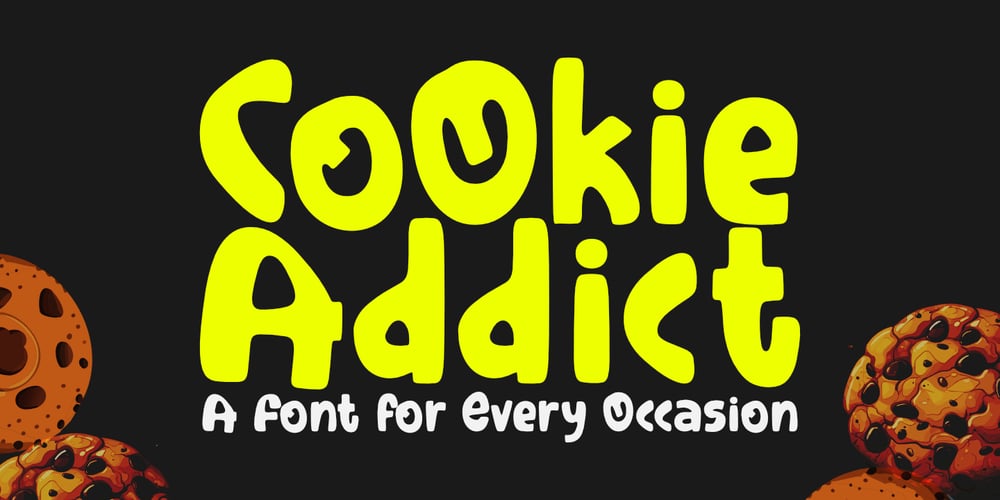
Cookie Addict Font Family was designed by Nurul Hidayani and published by Olivetype. Cookie Addict contains 1 styles and family package options. Cookie Addict is a versatile font designed to captivate attention and leave a lasting impression. Its bold strokes and playful curves make it perfect for a wide range of creative projects, including:- Logotypes: Create eye-catching brand identities.- Product Branding: Elevate your product packaging and marketing materials.- Headlines: Make your headlines stand out in any design.- Advertisements: Grab your audience’s attention with bold and playful typography.- Movie Titles: Add a touch of fun and excitement to your film posters.With its unique character and endless possibilities, Cookie Addict is the perfect font to add a touch of sweetness to your designs.Cookie Addict features :- Standard Latin- Numbers, symbols, and punctuations- Multilingual Support.- Fully accessible without additional design software- Simple Installations- Works on PC & MacThank You